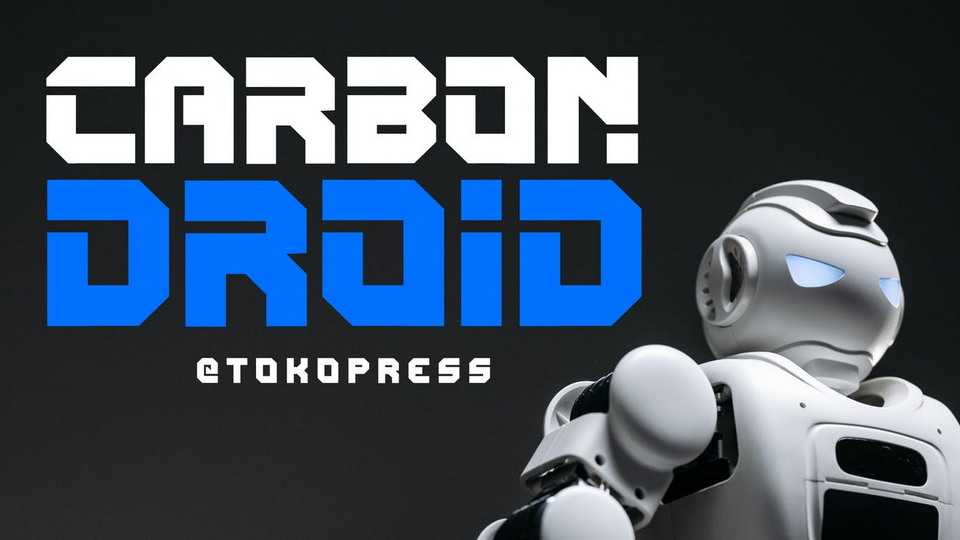
Download Carbon Droid font, a bold techno typeface. Carbon Droid font suits perfectly for future and science segmented magazines, posters, movie titles, music posters and so on…